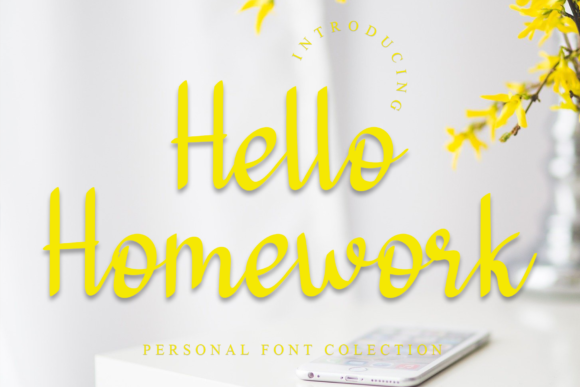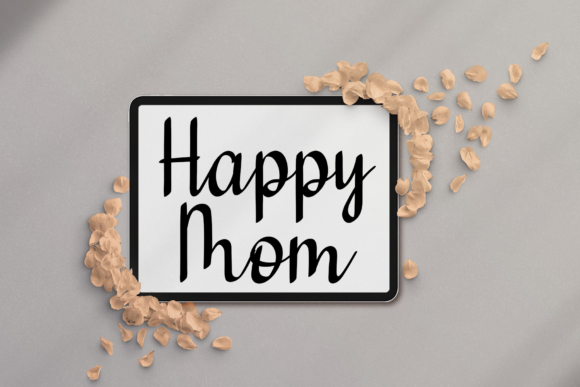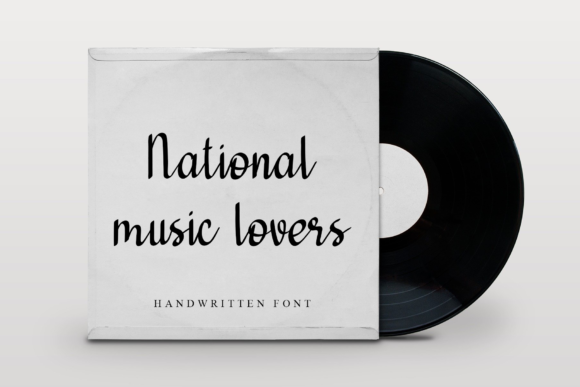
About Hello Homework Font
Hello Homework is a modern display font that is readable, bold and stylish. It is defined by smooth curves and is perfect for fashion branding or editorial designs. Add it confidently to your projects, and you will love the results.